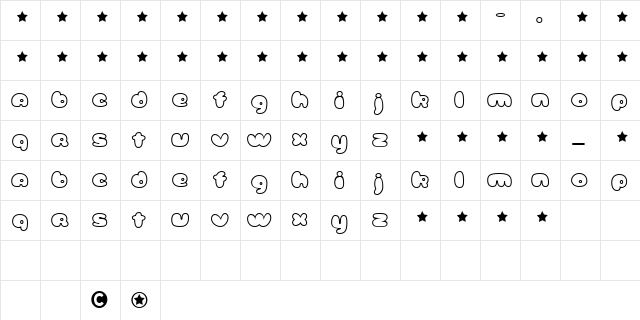
Polar Bear Regular
Design Context for Polar Bear Typeface
Polar Bear is a composed and adaptable typeface that performs quietly and consistently across a wide range of design contexts.